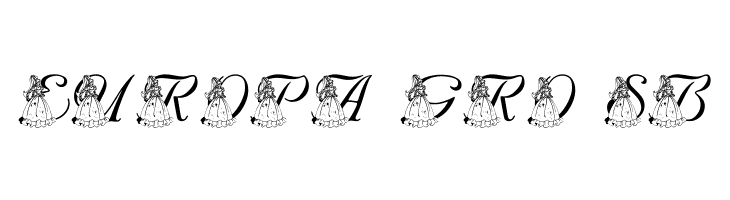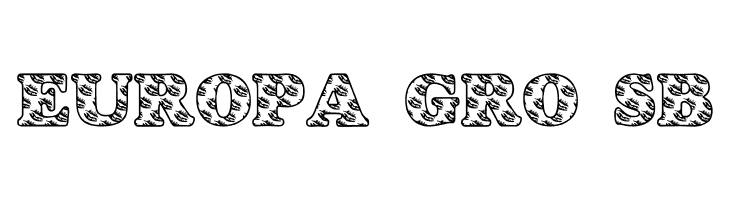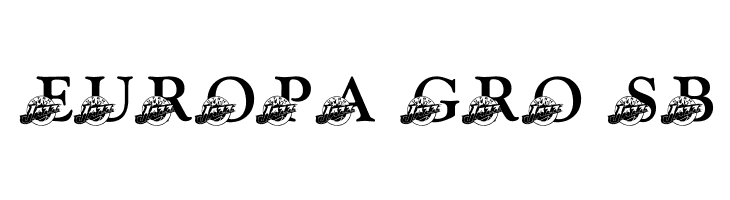
( London's Letters - www.londonsletters.com/ ) A bold, dynamic font with a sporty, energetic style. Download 70 Downloads@WebFont
( London's Letters - www.londonsletters.com/ ) A whimsical font with characters inside frothy beer mugs, ideal for festive designs. Download 67 Downloads@WebFont
( London's Letters - www.londonsletters.com/ ) An ornate, Claddagh-inspired decorative font with intricate designs. Download 59 Downloads@WebFont
( London's Letters - www.londonsletters.com/ ) A decorative font with a playful lip pattern within each character. Download 65 Downloads@WebFont
( London's Letters - www.londonsletters.com/ ) A playful, marshmallow-themed decorative font with bold, shadowed characters. Download 49 Downloads@WebFont
( London's Letters - www.londonsletters.com/ ) A bold, playful font with superhero-themed embellishments on each letter. Download 71 Downloads@WebFont
( London's Letters - www.londonsletters.com/ ) A bold, basketball-themed font with integrated player silhouettes. Download 79 Downloads@WebFont
( London's Letters - www.londonsletters.com/ ) A decorative and artistic font with intricate feather-like details. Download 72 Downloads@WebFont
( London's Letters - www.londonsletters.com/ ) A decorative font with winged embellishments, ideal for fantasy-themed projects. Download 74 Downloads@WebFont
( London's Letters - www.londonsletters.com/ ) A playful font with hugging character illustrations integrated into bold letters. Download 45 Downloads@WebFont
( London's Letters - www.londonsletters.com/ ) A decorative, holiday-themed font with script letters inside ornate ornaments. Download 76 Downloads@WebFont
( London's Letters - www.londonsletters.com/ ) A playful, dog-themed decorative font with bold, outlined characters. Download 52 Downloads@WebFont
( London's Letters - www.londonsletters.com/ ) A bold, decorative font with greenhouse-themed embellishments on each letter. Download 74 Downloads@WebFont
( London's Letters - www.londonsletters.com/ ) A festive, decorative font with holly motifs, perfect for holiday themes. Download 62 Downloads@WebFont
( London's Letters - www.londonsletters.com/ ) A decorative script font with integrated butterfly motifs. Download 104 Downloads@WebFont
( London's Letters - www.londonsletters.com/ ) A bold, decorative font featuring unique emblematic designs within each character. Download 68 Downloads@WebFont
( London's Letters - www.londonsletters.com/ ) A playful font with each character paired with a detailed bee illustration. Download 55 Downloads@WebFont
( London's Letters - www.londonsletters.com/ ) A whimsical, cartoon-inspired font with bold, script-like letters and playful characters. Download 52 Downloads@WebFont
( London's Letters - www.londonsletters.com/ ) A decorative, floral-patterned uppercase font perfect for enchanting designs. Download 78 Downloads@WebFont
( London's Letters - www.londonsletters.com/ ) A bold, playful font with cartoon characters embedded in each letter. Download 65 Downloads@WebFont
( London's Letters - www.londonsletters.com/ ) A whimsical font with characters integrated with bat illustrations, perfect for themed designs. Download 79 Downloads@WebFont
( London's Letters - www.londonsletters.com/ ) A whimsical, gingerbread-themed font perfect for festive projects. Download 56 Downloads@WebFont
( London's Letters - www.londonsletters.com/ ) A bold serif font with integrated airplane illustrations for a playful touch. Download 52 Downloads@WebFont
( London's Letters - www.londonsletters.com/ ) A bold, playful font with elephant illustrations accompanying each letter. Download 50 Downloads@WebFont
( London's Letters - www.londonsletters.com/ ) A bold, decorative font with floral patterns integrated into each character. Download 109 Downloads@WebFont
( London's Letters - www.londonsletters.com/ ) A decorative font with princess illustrations for each uppercase letter. Download 52 Downloads@WebFont
( London's Letters - www.londonsletters.com/ ) A decorative font with bold, italicized letters and candelabra motifs for a festive look. Download 48 Downloads@WebFont
( London's Letters - www.londonsletters.com/ ) A heraldic font with characters enclosed in shield emblems, ideal for decorative use. Download 78 Downloads@WebFont
( London's Letters - www.londonsletters.com/ ) An ornate, heraldic shield-enclosed decorative font with a regal flair. Download 46 Downloads@WebFont
Recent favorites include LMS Jazz Fan, This Is The Future Italic, LMS Irish Beer, LMS Inside My Claddah and LMS I Want To Kiss You All Over. They balance clarity and personality, working well for tech brands, editorial layouts, and social visuals.